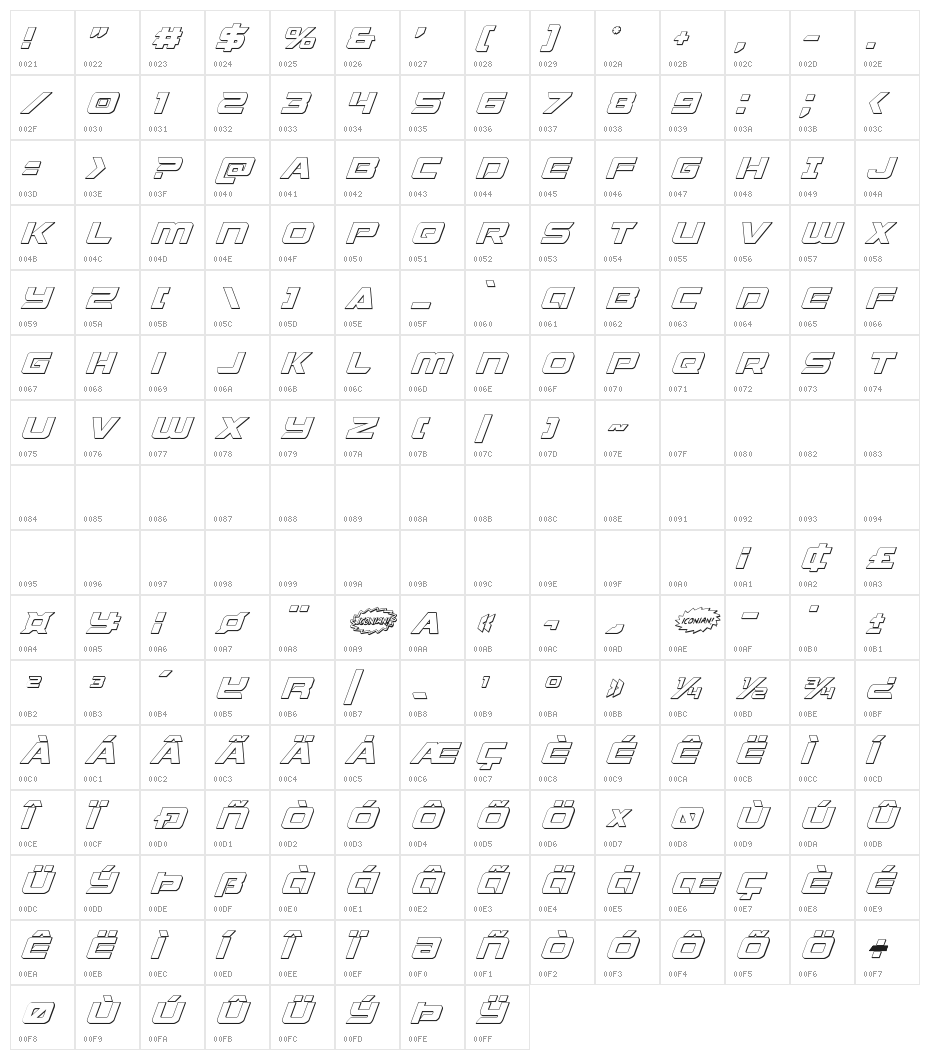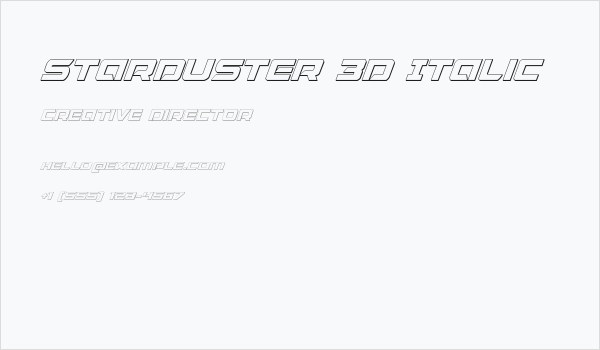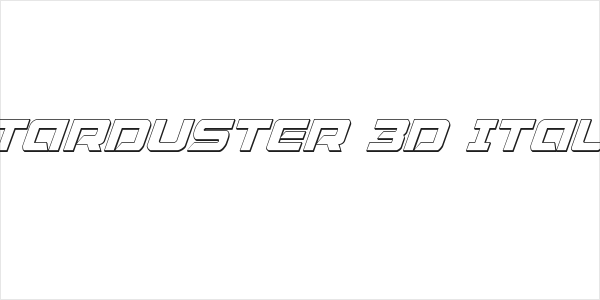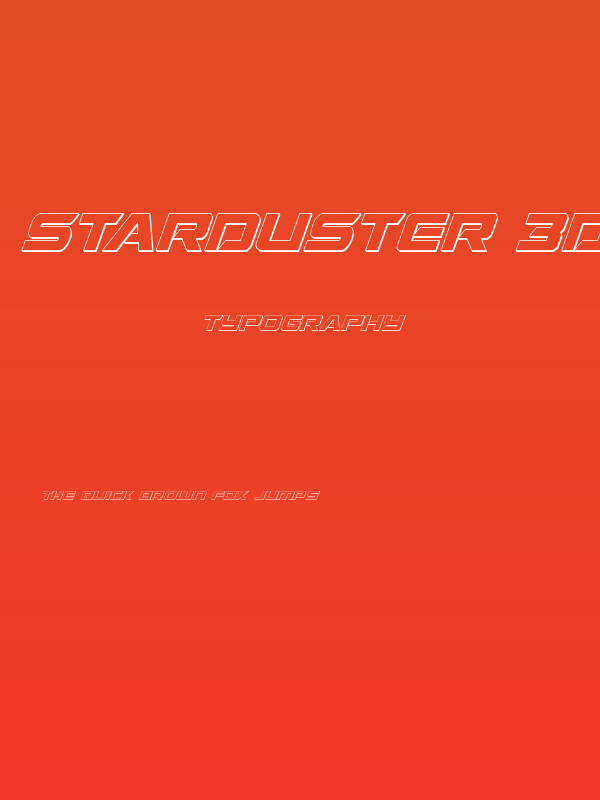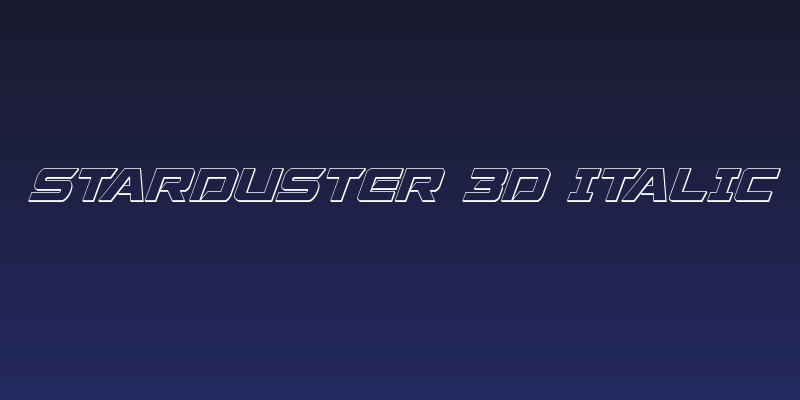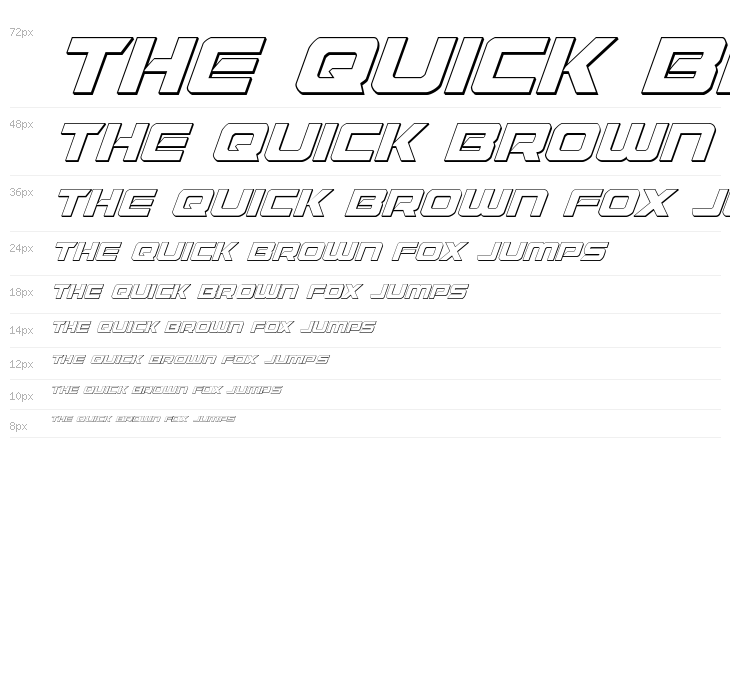
Starduster 3D Italic Font
Starduster 3D Italic Description
This font features a bold, three-dimensional design with an italic slant, giving it a dynamic and futuristic appearance. The characters are outlined, creating a hollow effect that enhances its 3D look. The uppercase and lowercase letters maintain a consistent style, with sharp angles and clean lines that suggest movement and speed. The numerals and special characters are designed to match the overall aesthetic, making the font suitable for projects that require a modern and edgy feel. Its unique style makes it stand out, perfect for eye-catching designs.
| Overall Style | Futuristic, Dynamic |
| Proposed Projects | Ideal for sci-fi themed designs, video game titles, posters, and branding that requires a modern and edgy look. |